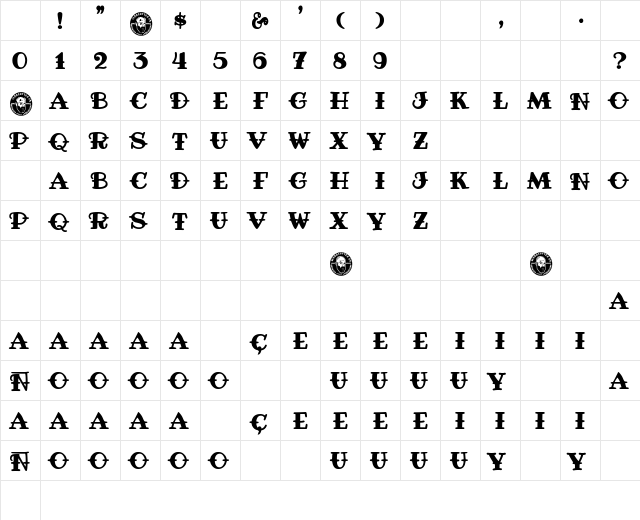
Complete F.T.W. since 1974 Regular glyph index. Displaying only characters natively supported by F.T.W. since 1974 Regular font.
F.T.W. since 1974 is a composed and adaptable typeface that performs quietly and consistently across a wide range of design contexts.